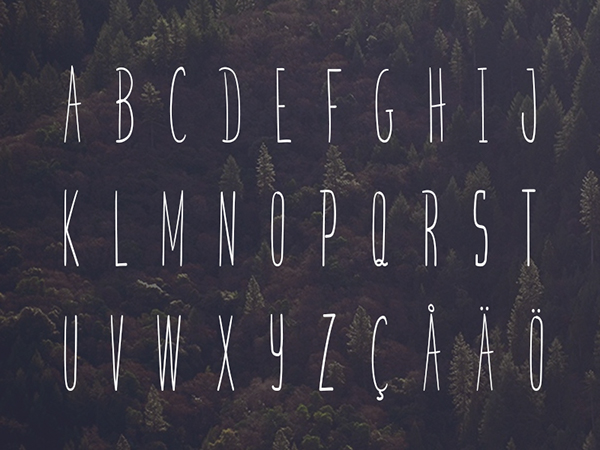
Here is a super nice skinny new handwritten font created by Marcelo Reis Melo and Free Goodies for Designers. Great font for headlines, full of personality, and a lot of energy.